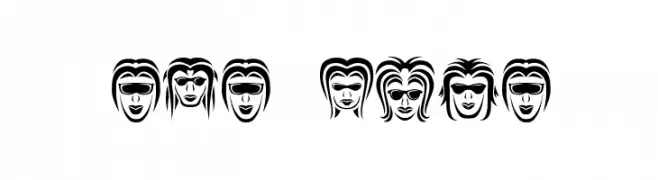
• Wanita Regular
A decorative collection of stylized face icons with unique features.
• Womano Regular
Illustrative font with unique hand-drawn female faces as characters.
• Yeysk Regular
A sleek, modern font with clean lines and geometric structure.
• Trio Bold Italic
A bold, italicized font with a unique triple-line design, perfect for modern projects.
• Trio Regular
A decorative, triple-line font with geometric precision and modern flair.
• Trio Bold
A bold, triple-line geometric font with a modern and retro feel.
• Trio Italic
A modern, multi-line italic font with geometric shapes and a dynamic slant.
• Login Italic
A bold, italic font with a dynamic and angular style.
• Gears Regular
A decorative font with mechanical gear elements and intricate line work.
• Macedonia 3D Filled Regular
A bold, 3D font with a filled interior and striking outline, perfect for dynamic designs.